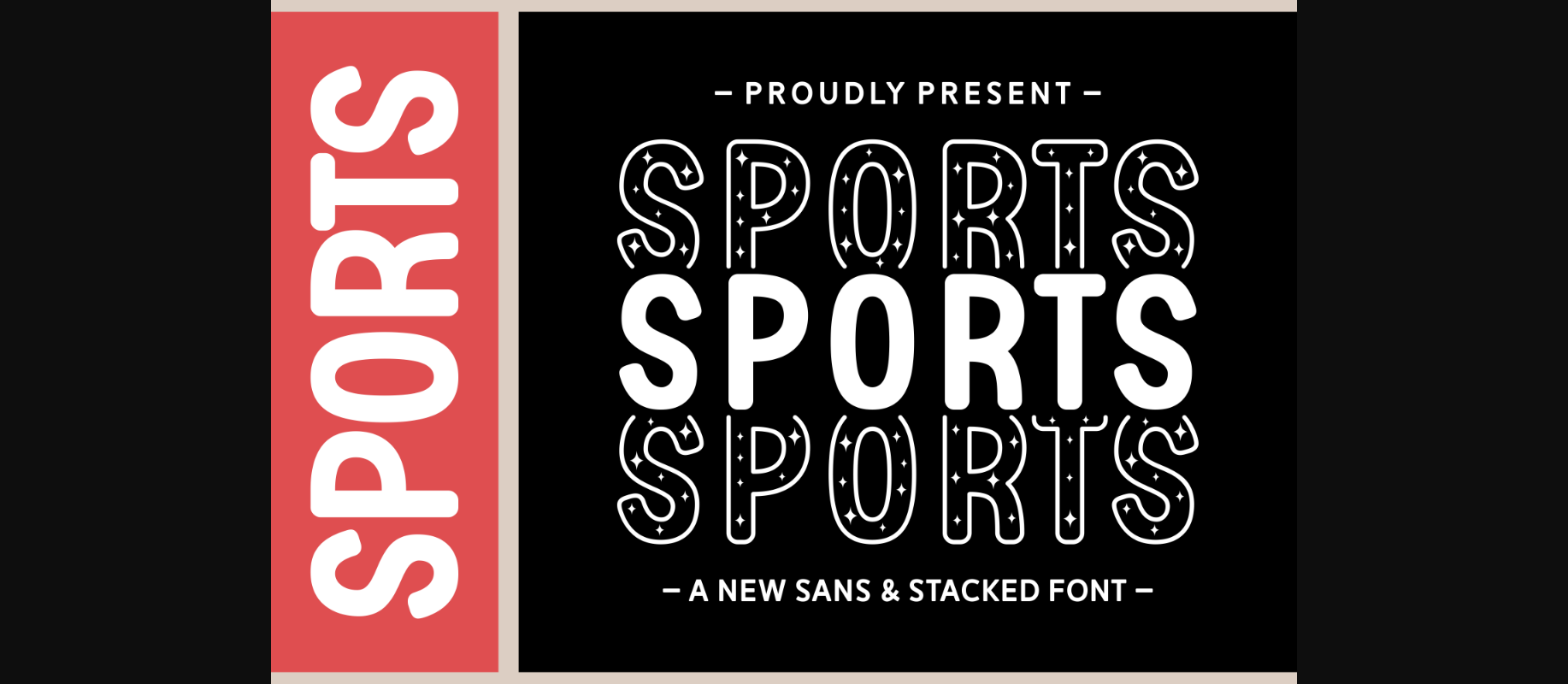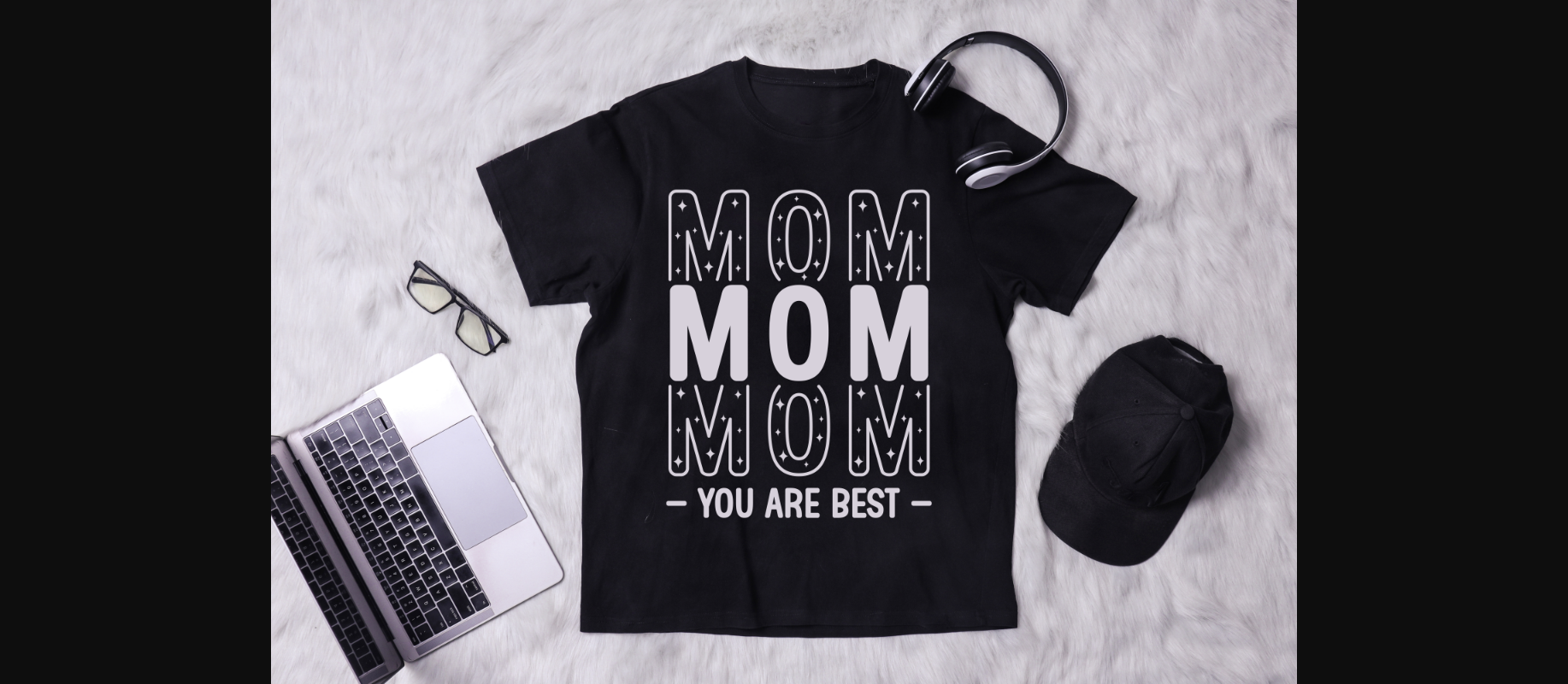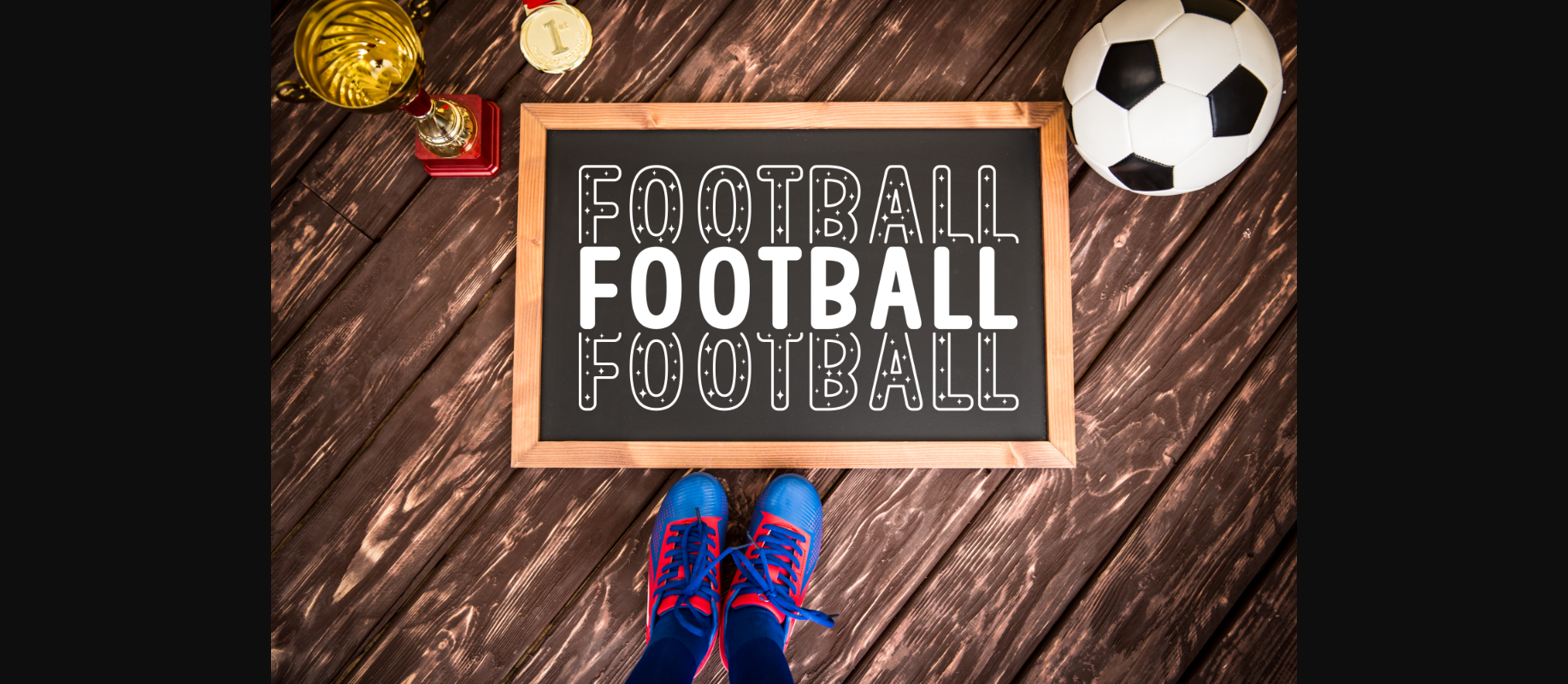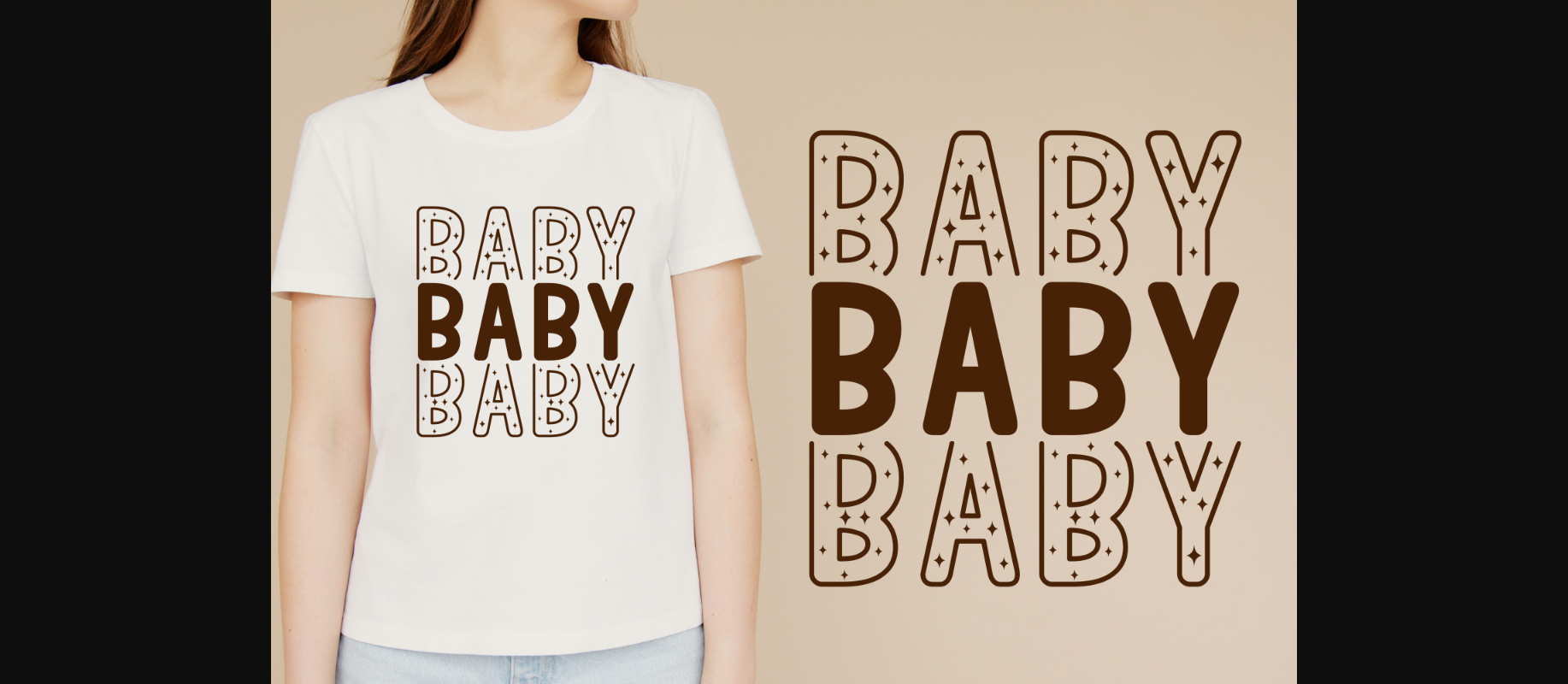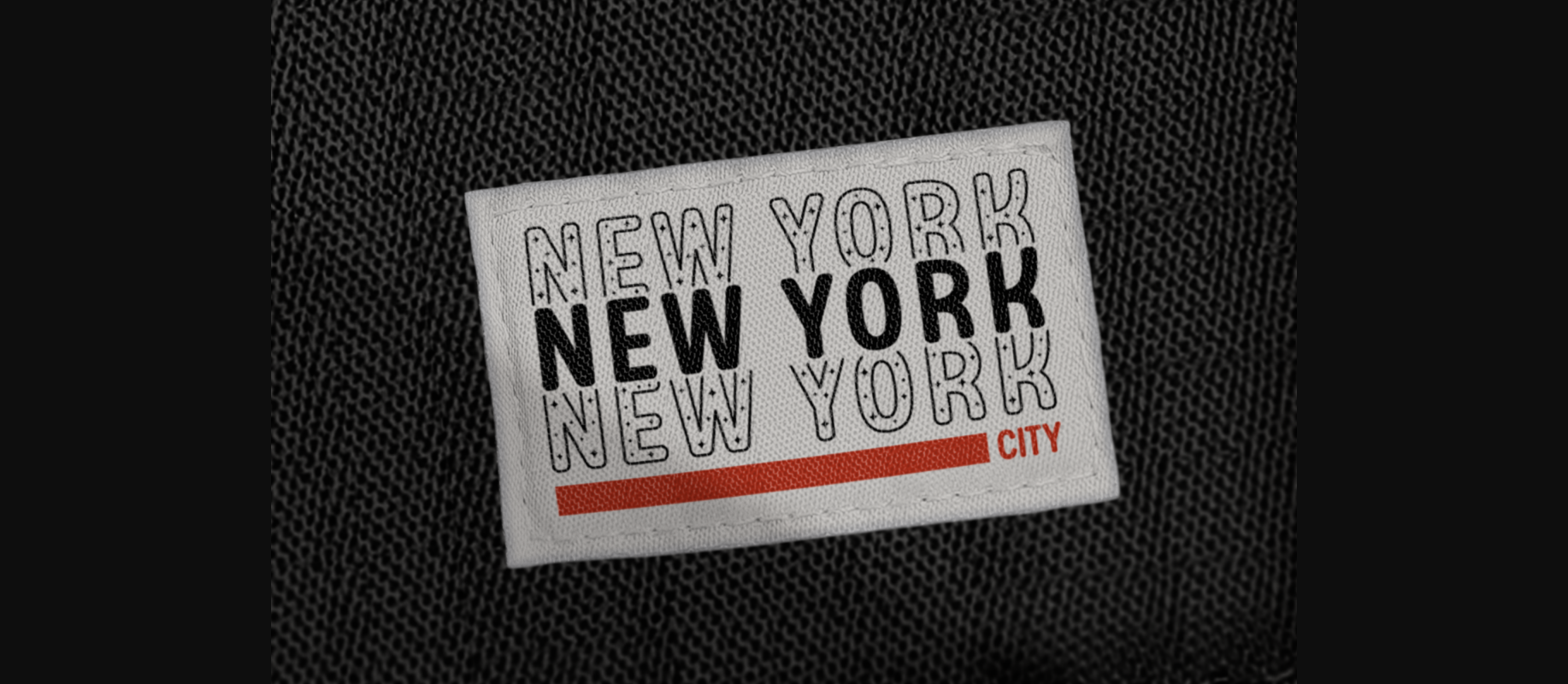
About Sports Font
Sports is an enchanting display font that adds a touch of magic to your designs. Each letter is adorned with shimmering sparkles, giving your text a whimsical and dazzling appearance. Whether you’re designing invitations, greeting cards, or special event banners, it will bring a sparkling charm to your project, making it stand out and capture attention.